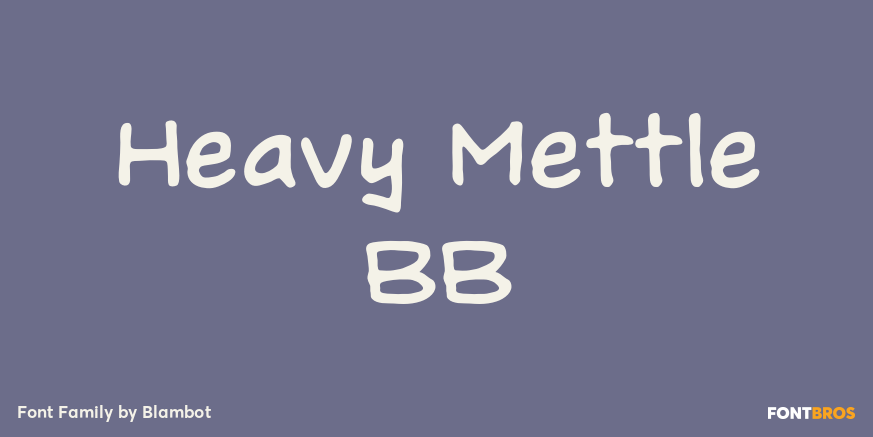
Heavy Mettle is a family of eight comic book dialogue fonts designed to rock your comic. Hard. European characters abound, as well as autoligatures in the Opentype versions.